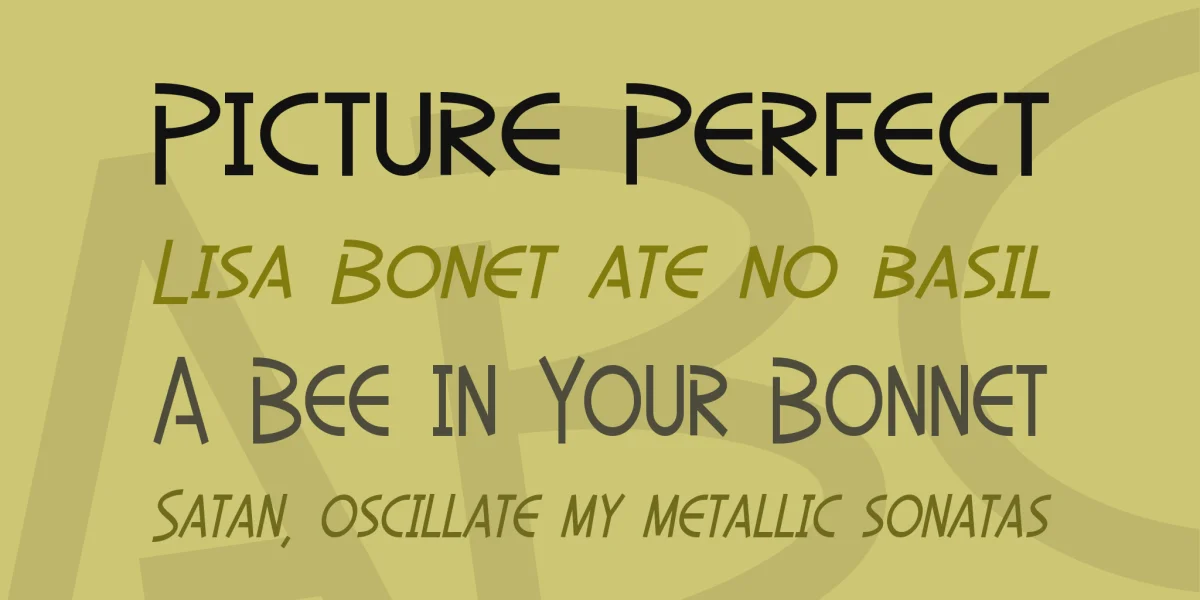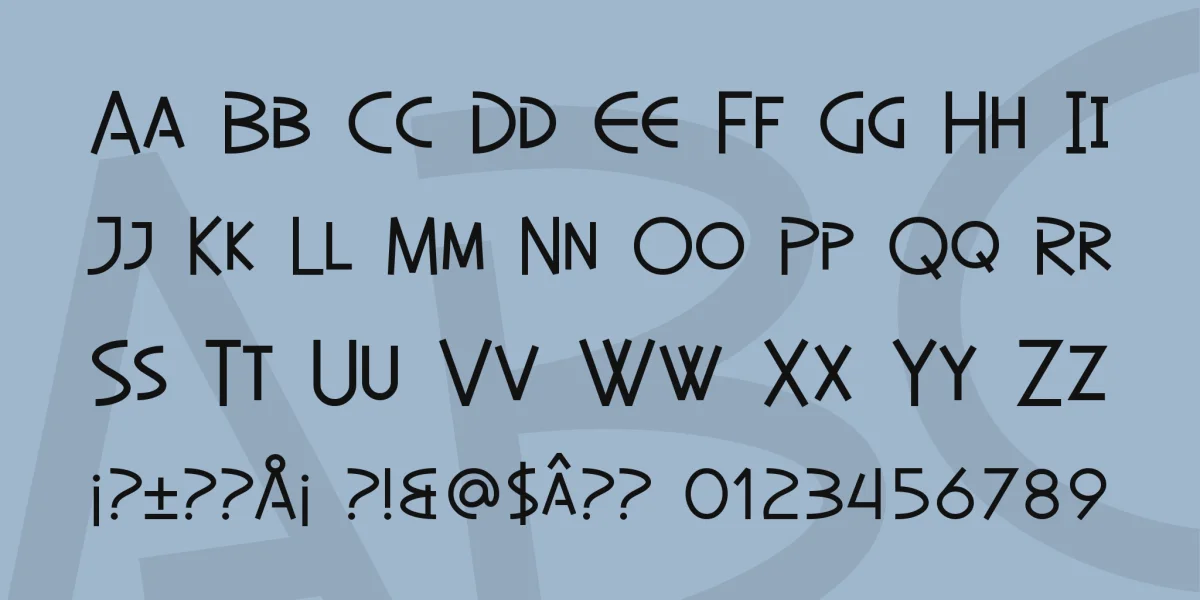
A typeface inspired by the Art Deco movement of the 1920's and 1930's, SF Diego Sans contains uppercase and alternate letters, numbers, punctuation, and accented characters.